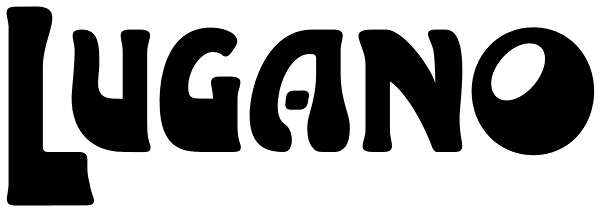
Lugano
Lugano has it’s inspiration in 1920s advertising material and is ideal for lively banner lettering, posters and cover design. Four typefaces are offered - Lugano comes in regular, alternate, striped and alternate striped forms. Try it out and inject...
Lugano Alternate
Lugano
Lugano Striped
Lugano Alternate Striped